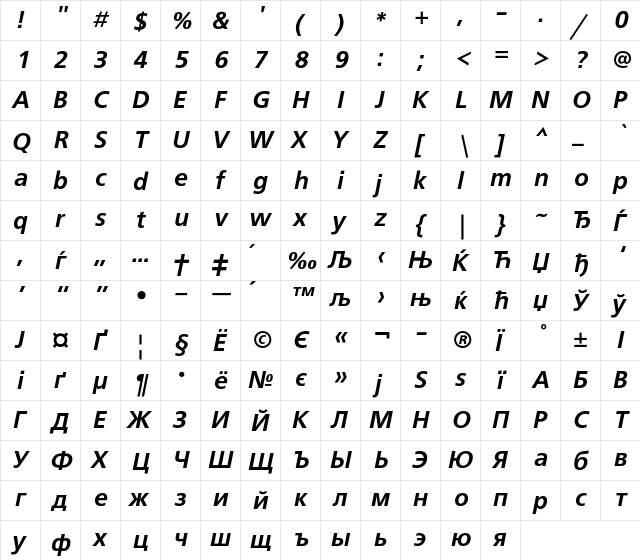
FreeSetC Regular
Design Context for FreeSetC Typeface
FreeSetC is a composed and adaptable typeface that performs quietly and consistently across a wide range of design contexts.